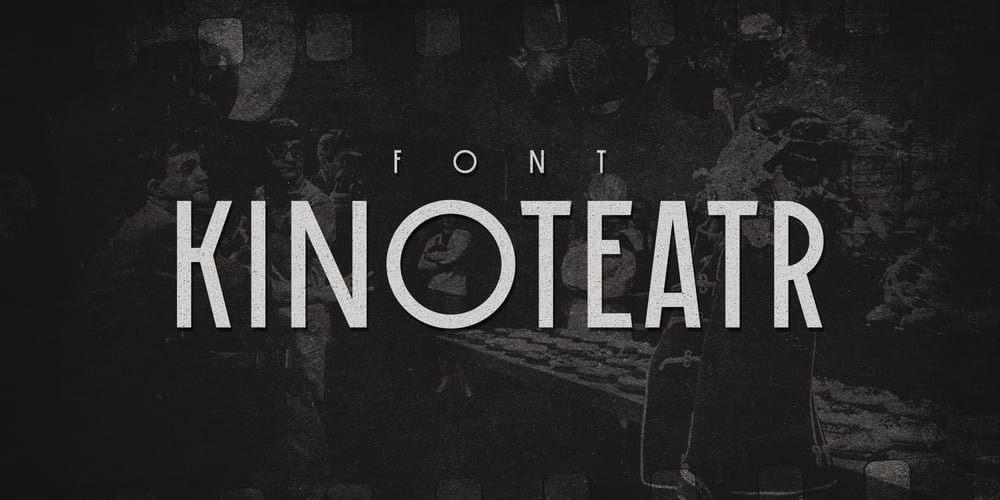
TD Kinoteatr
TD Kinoteatr font
TD Kinoteatr Font Family was designed by Tektov Dmitry and published by Tektov Dmitry Type. TD Kinoteatr contains 1 styles and family package options. Font TD Kinoteatr.Supports:Cyrillic, Latin, Extended Cyrillic.Suitable for small volumes of text, titles, logos, illustrations, posters, packaging…